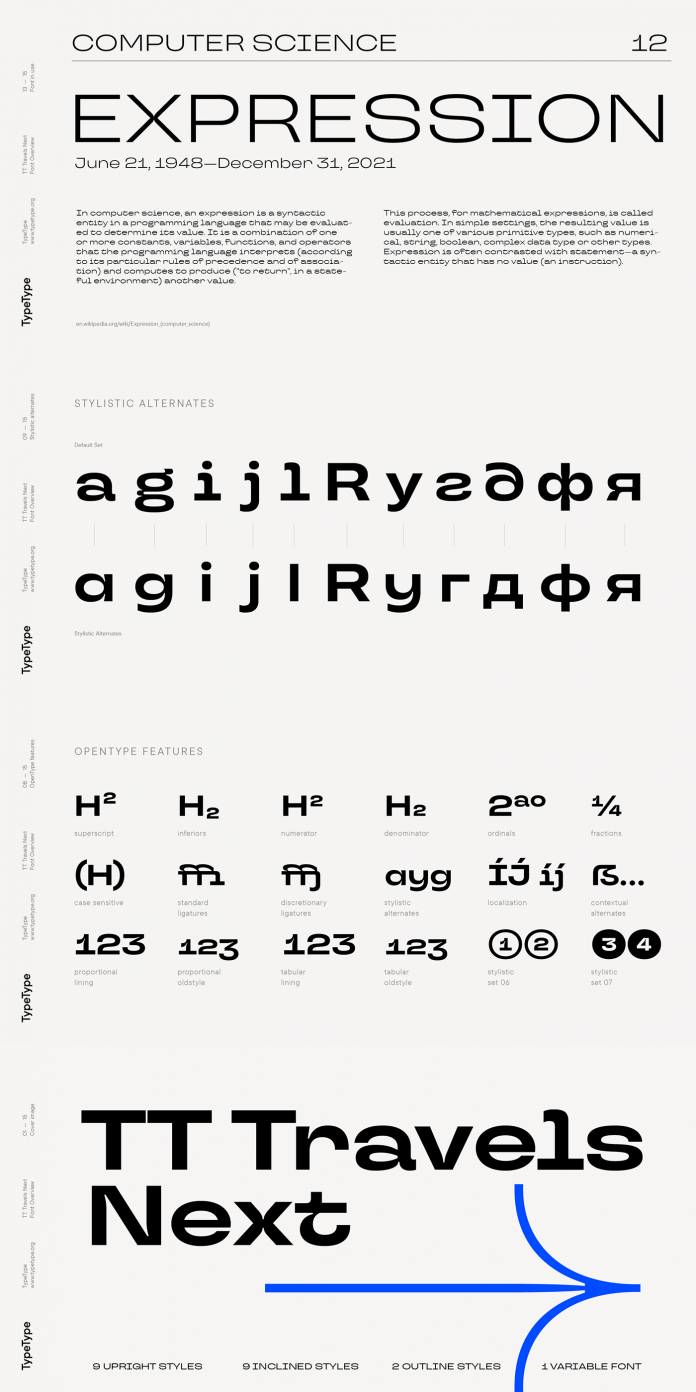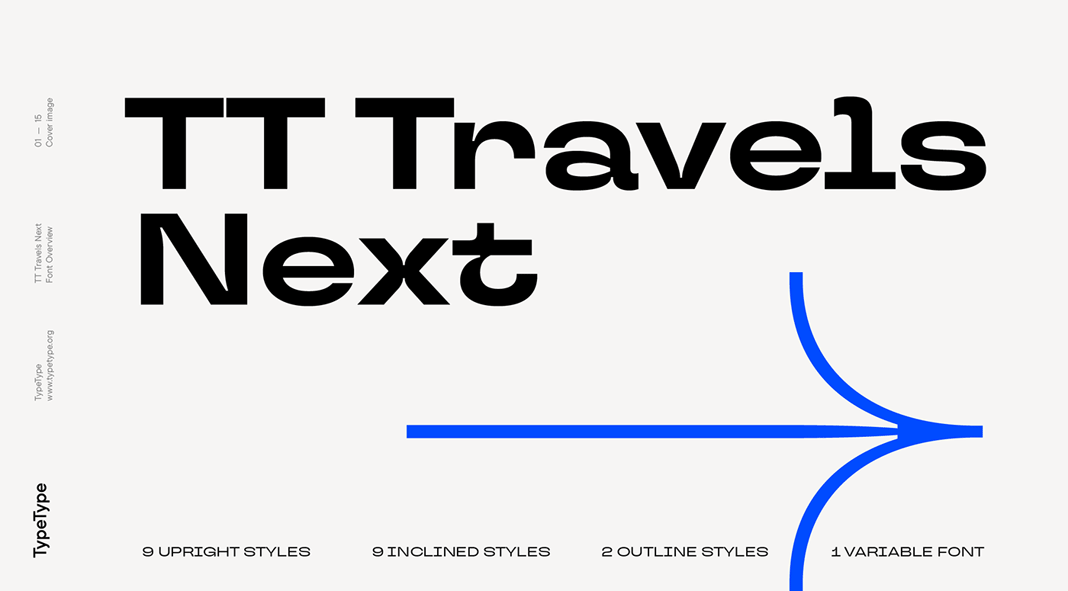
TT Travels Next, the stylized alternative version of the TT Travels font family.
Designed by Kseniya Karataeva and the TypeType team, TT Travels Next has been created with the aim to give the popular TT Travels font family a more radical companion for display use. Both families complement each other perfectly.
The typeface of the TT Travels Next font family is based on a trendy wide display sans serif with special characteristics. It can be used in a wide range of sets including print and web projects. With its very wide proportions and characters as well as its exaggerated closed aperture, low contrast, and the great mix of soft and sharp shapes, this family is a real eye-catcher. TT Travels Next also comes with two outline styles that match the upright styles perfectly.
The TT Travels Next font family consists of 21 fonts including 9 upright and 9 inclined styles, two outline styles, and one variable font with two variability axes (width and slant). Feel free to click on the following link to get further information about all typographic features.